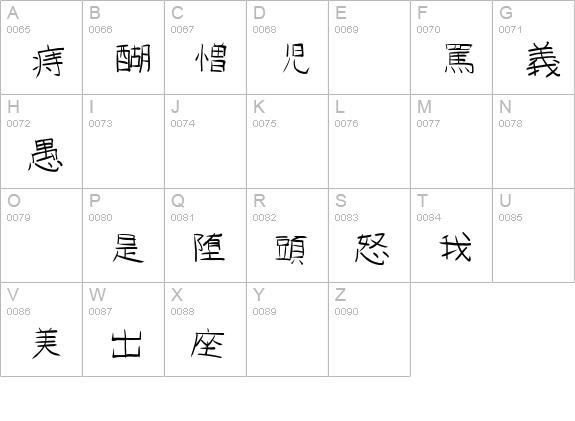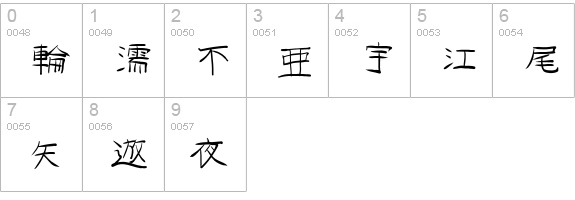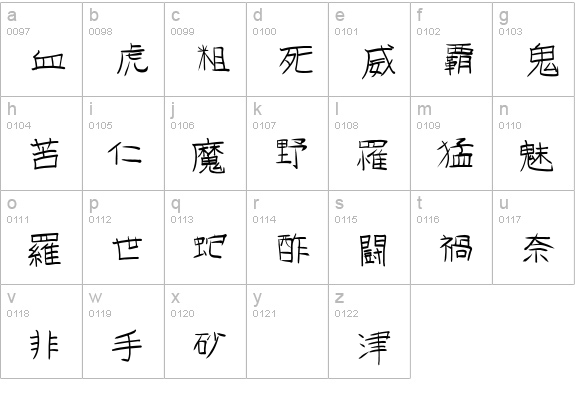
GoJuOn Font Details
The GoJuOn font is a stunning display typeface that exudes elegance and sophistication. Its sleek lines and intricate details make it a perfect choice for adding a touch of class to any design project. This versatile font is ideal for a wide range of applications, from branding and packaging to headlines and invitations. What's even better is that the GoJuOn font is completely free to download at FontsMarket.com. That's right, you can enhance your designs with this beautiful font without spending a penny. Don't miss out on the opportunity to elevate your projects with the GoJuOn font – download it now and start creating stunning designs today!